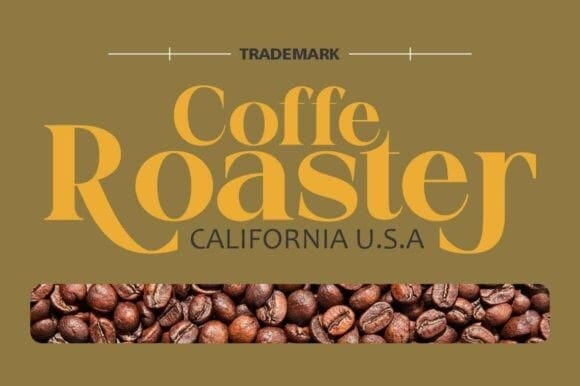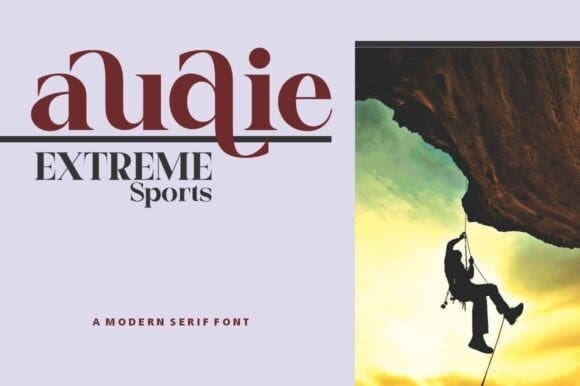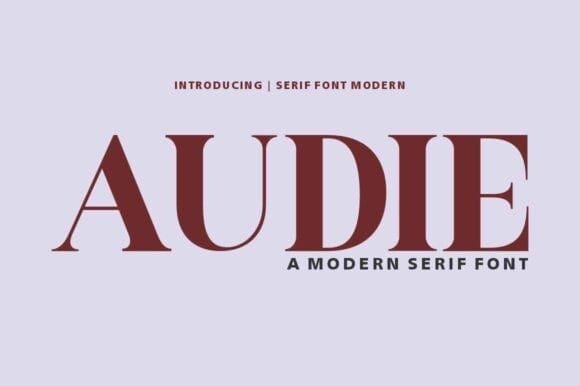
Audie Font
Audie Font is a modern serif font. Consisting of styles designed for strong headlines, this font is suitable for use in different areas, from banners and posters, newspapers and magazines, logos and brand identities, to movie and game titles. If you are looking for a modern serif style that can be effective in branding, you can easily use this font.